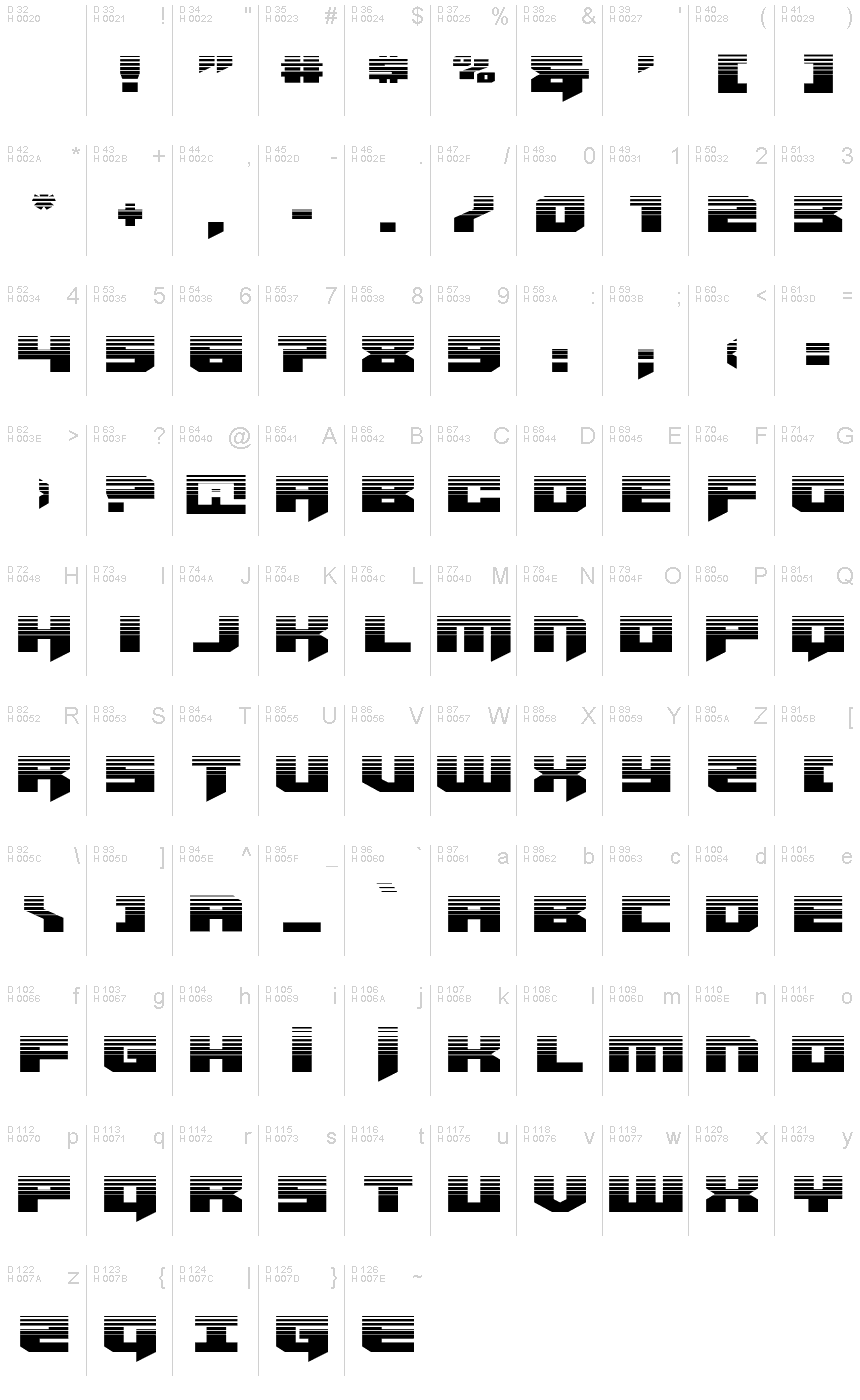
Bridge OFFicer Straight Half
Bridge Officer Straight Half, from the Bridge Officer font family, is a display typeface with a bold techno style that commands attention. Designed by Iconian Fonts, this font stands out with its extra-bold weight and extra-expanded width, exuding strength and modernity. The distinct lines and geometric shapes of Bridge Officer Straight Half make it ideal for projects seeking to convey power and precision. Its aesthetic appeal lies in the clean-cut edges and sturdy form, making it perfect for titles, headers, and any application where clarity and impact are paramount.
This typeface's commanding presence could be effectively utilized in science fiction media, tech presentations, or any creative endeavor that desires a futuristic touch.